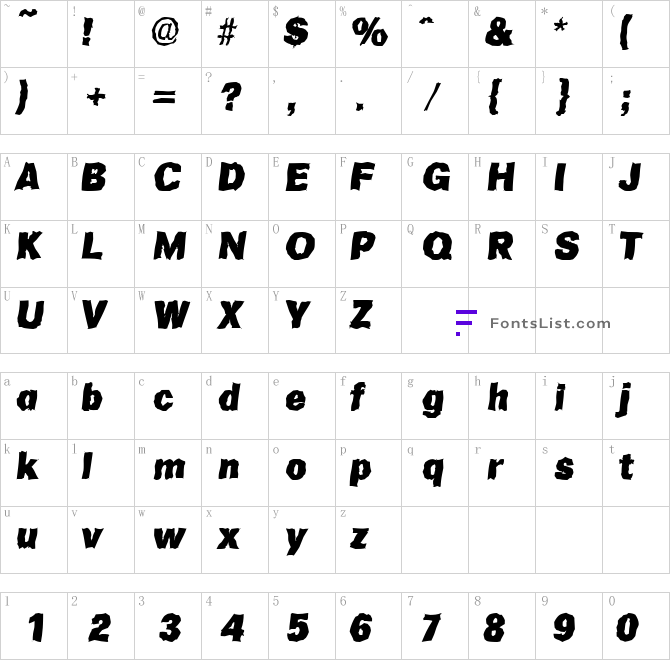
- Font Name:AdamBeckerRandom-Heavy
- Subfamily:Alts:AdamBeckerRandom-Heavy-Italic
- Full Name:AdamBeckerRandom-Heavy-Italic
- PostScript:AdamBeckerRandom-Heavy-Italic
AdamBeckerRandom-Heavy-Italic.ttf is a very beautiful artistic font, AdamBeckerRandom-Heavy-Italic.ttf is widely used in the design and printing of various books and pictures,AdamBeckerRandom-Heavy-Italic.ttf has a strong visual impact,AdamBeckerRandom-Heavy-Italic.ttf is a commonly used font in newspapers, magazines and books, and is used in posters, e-commerce Poster design, store design, logo design, font design and other fields.AdamBeckerRandom-Heavy-Italic.